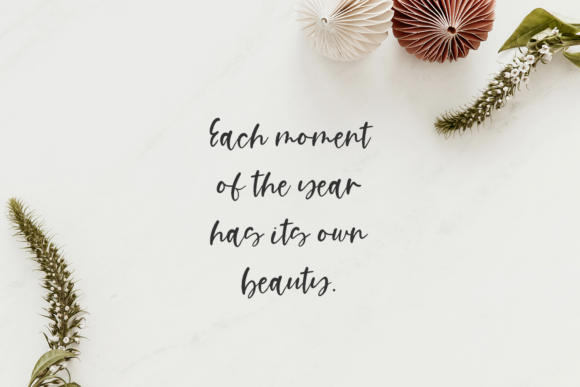
Cardigan Font
db-ku.com - Script & Handwritten -- Cardigan is a dreamy and textured script font that has an authentic handwritten feel. Cardigan script is best for logos + branding, print design, like greeting cards, header elements that need a handwritten touch, quote graphics for social media.